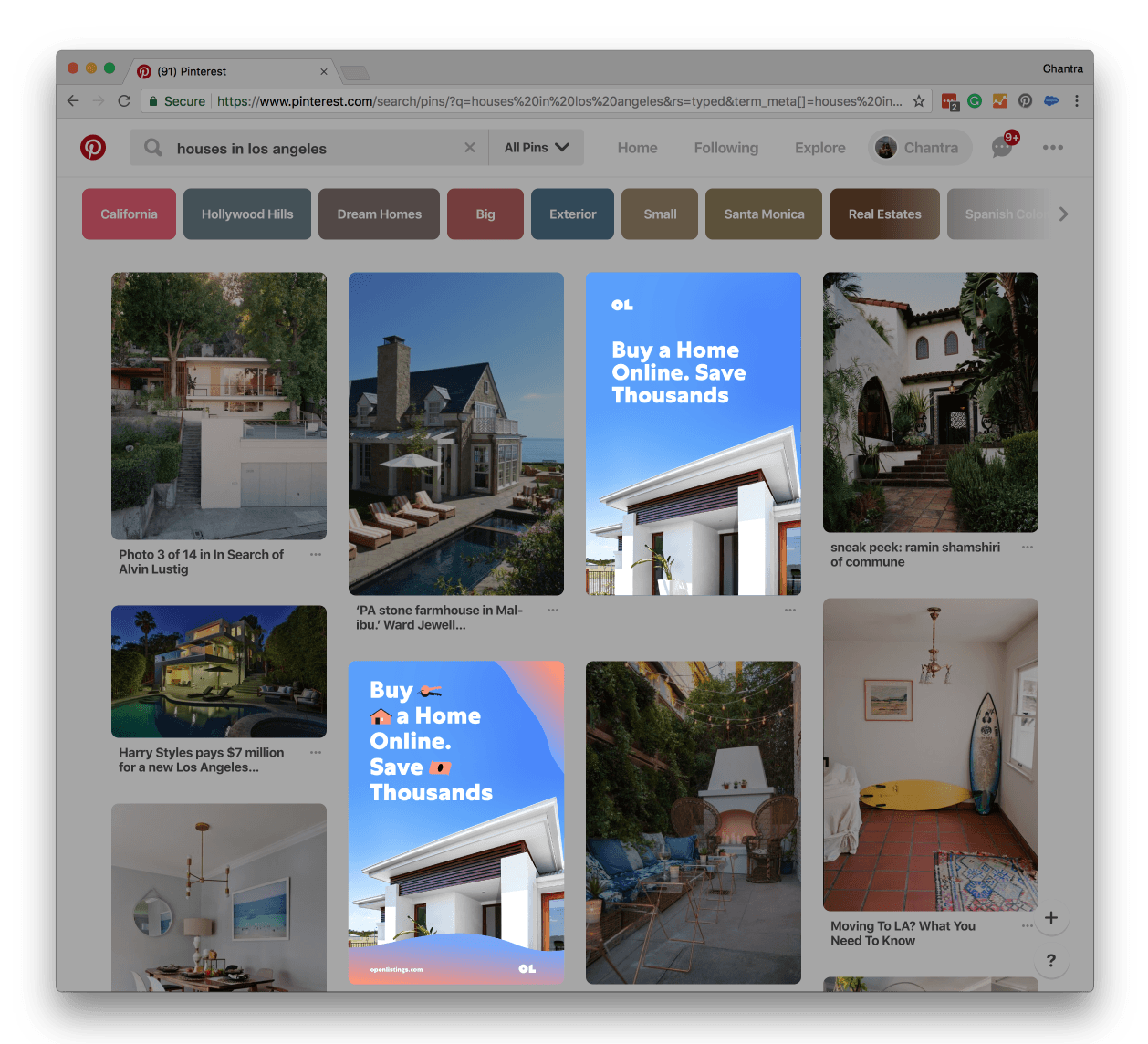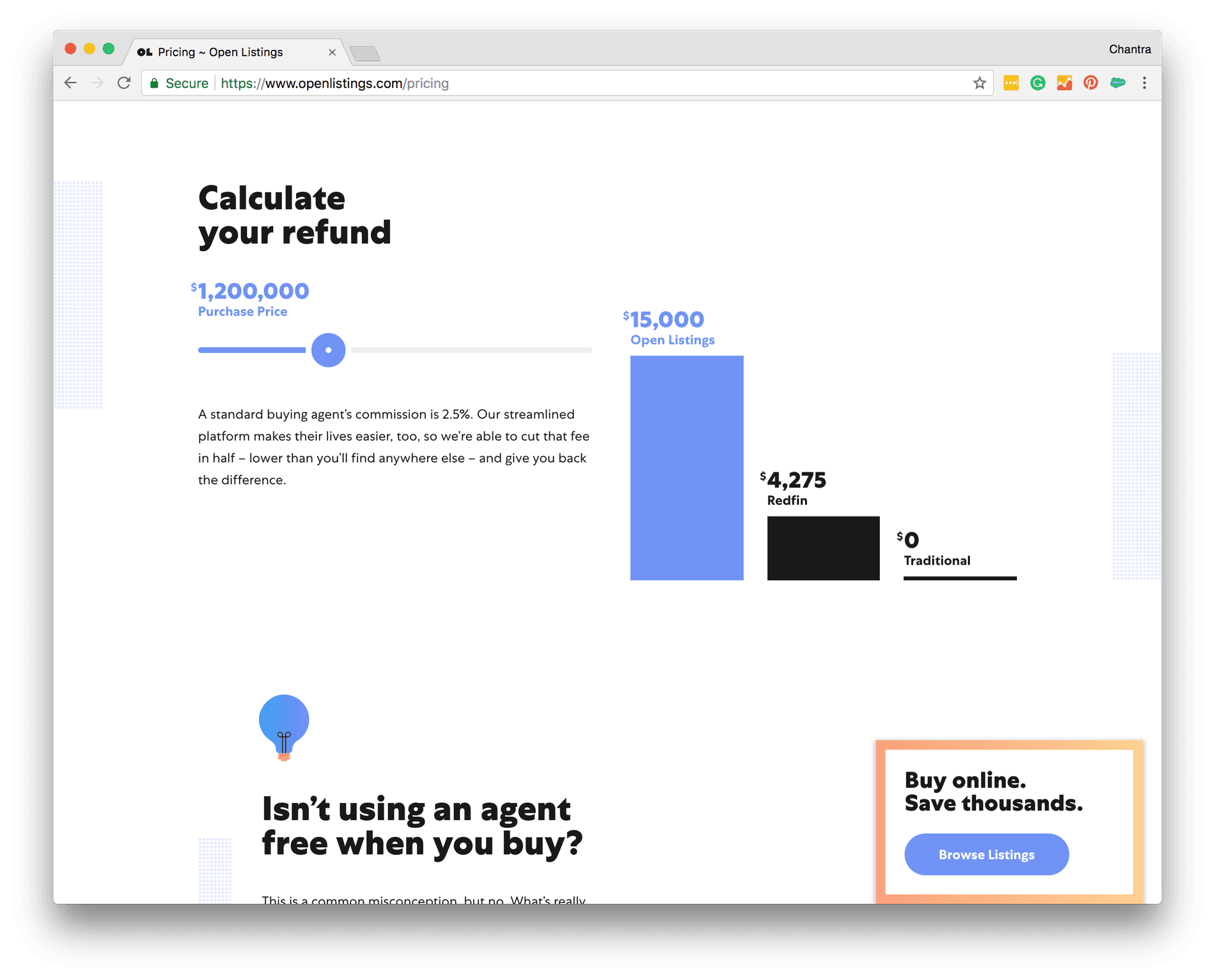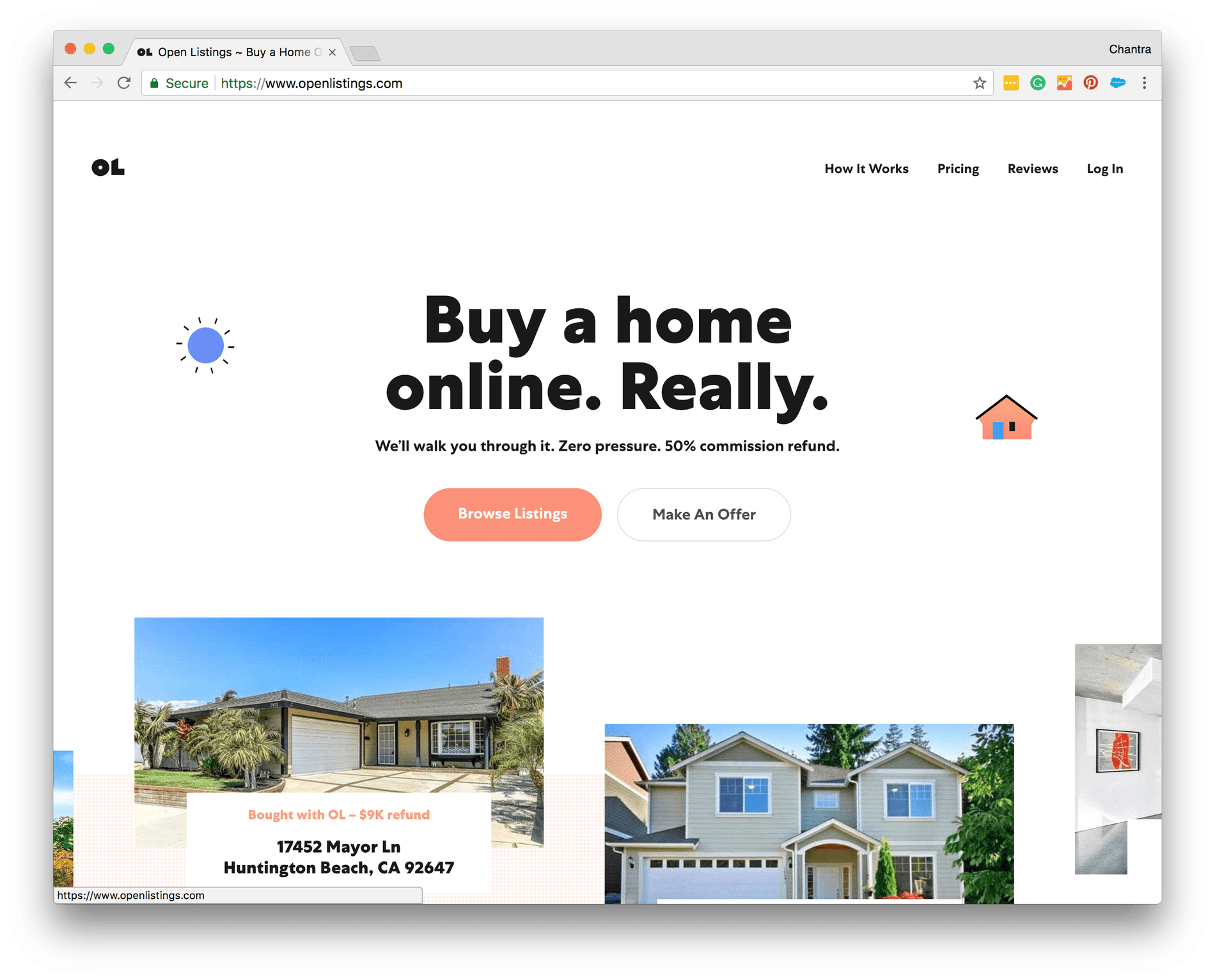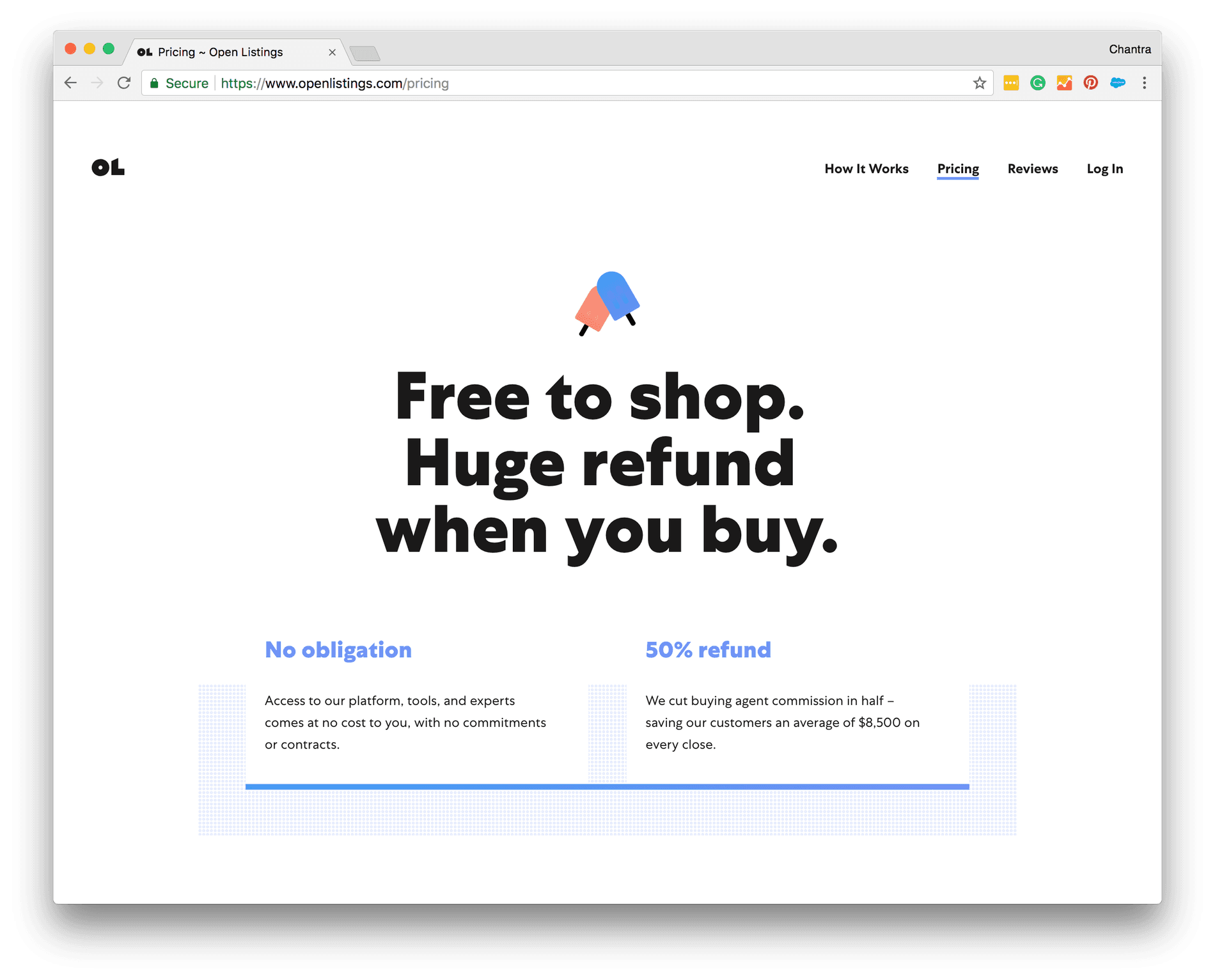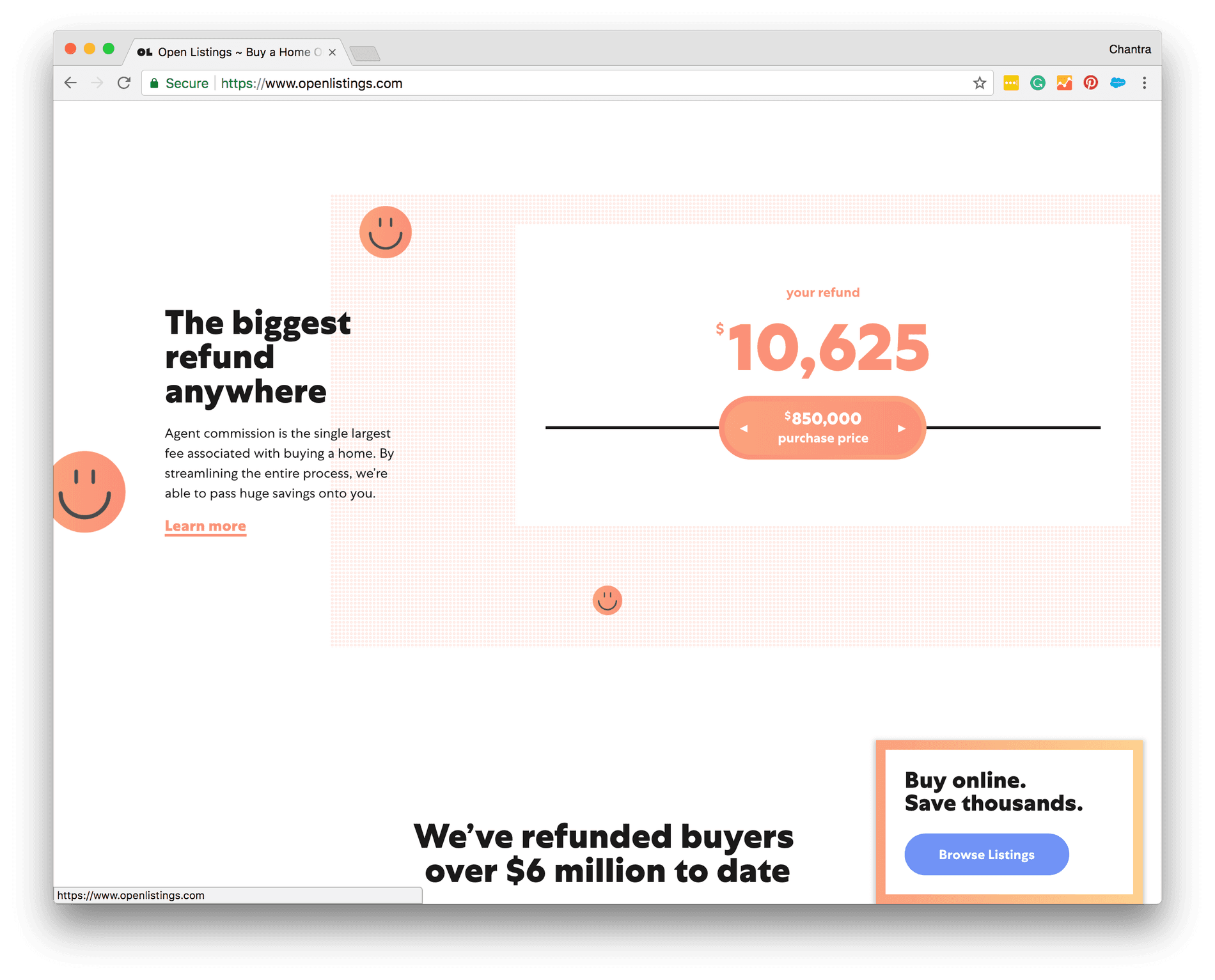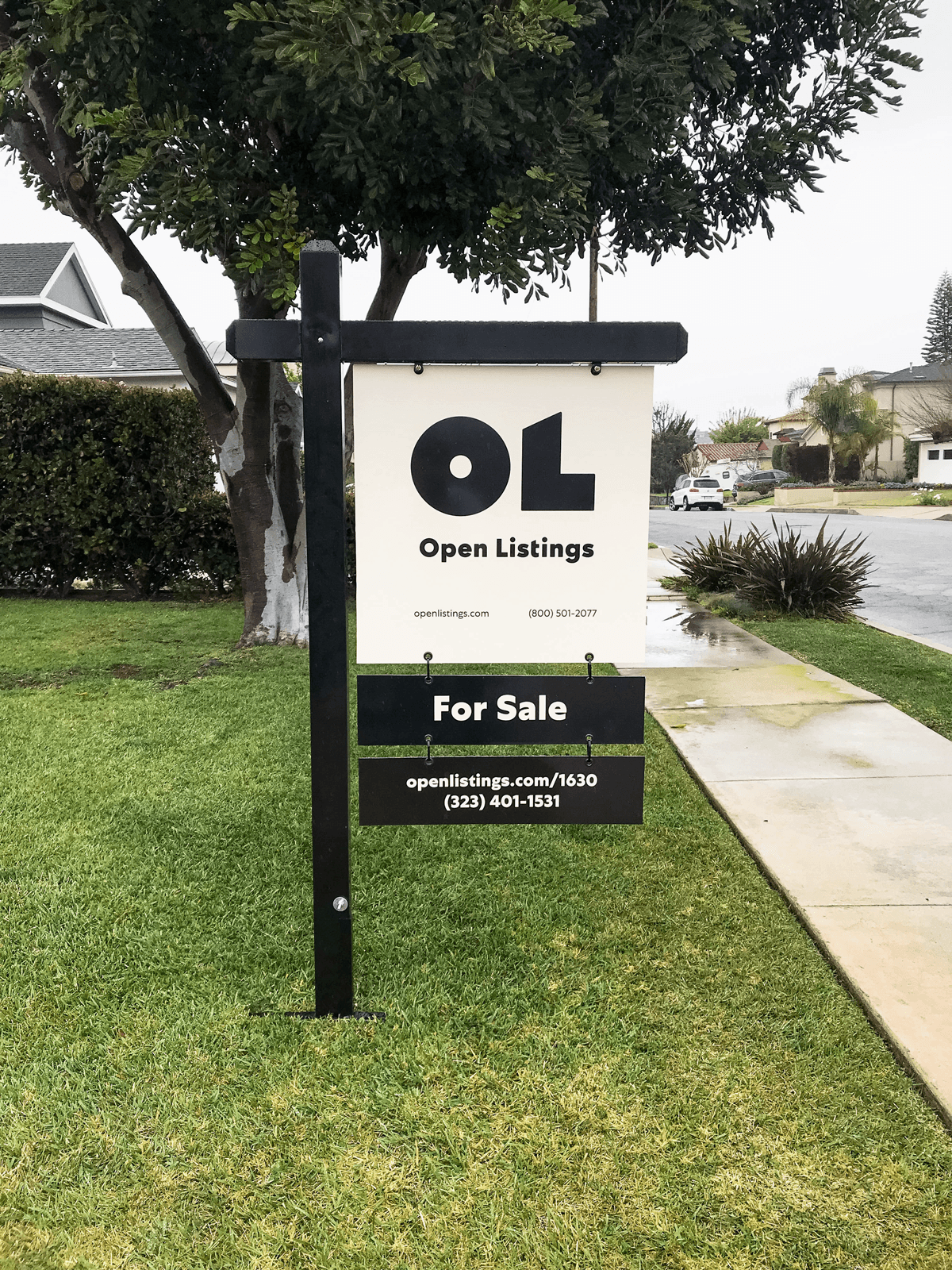
Open Listings is an online real estate brokerage allowing buyers to search, make appointments, and bid for housing on their computers, disrupting the real estate industry as we know it. We first learned about the startup last year in the summer of 2017 after co-founder Peter Sugihara reached out to use Centra No.1. Our good friend and talented designer Justin Sloane designed the branding for the company, whose clean, simple, and sophisticated layout is a perfect backdrop for a humanist sans serif like Centra No.1.
Typeface: Centra No.1
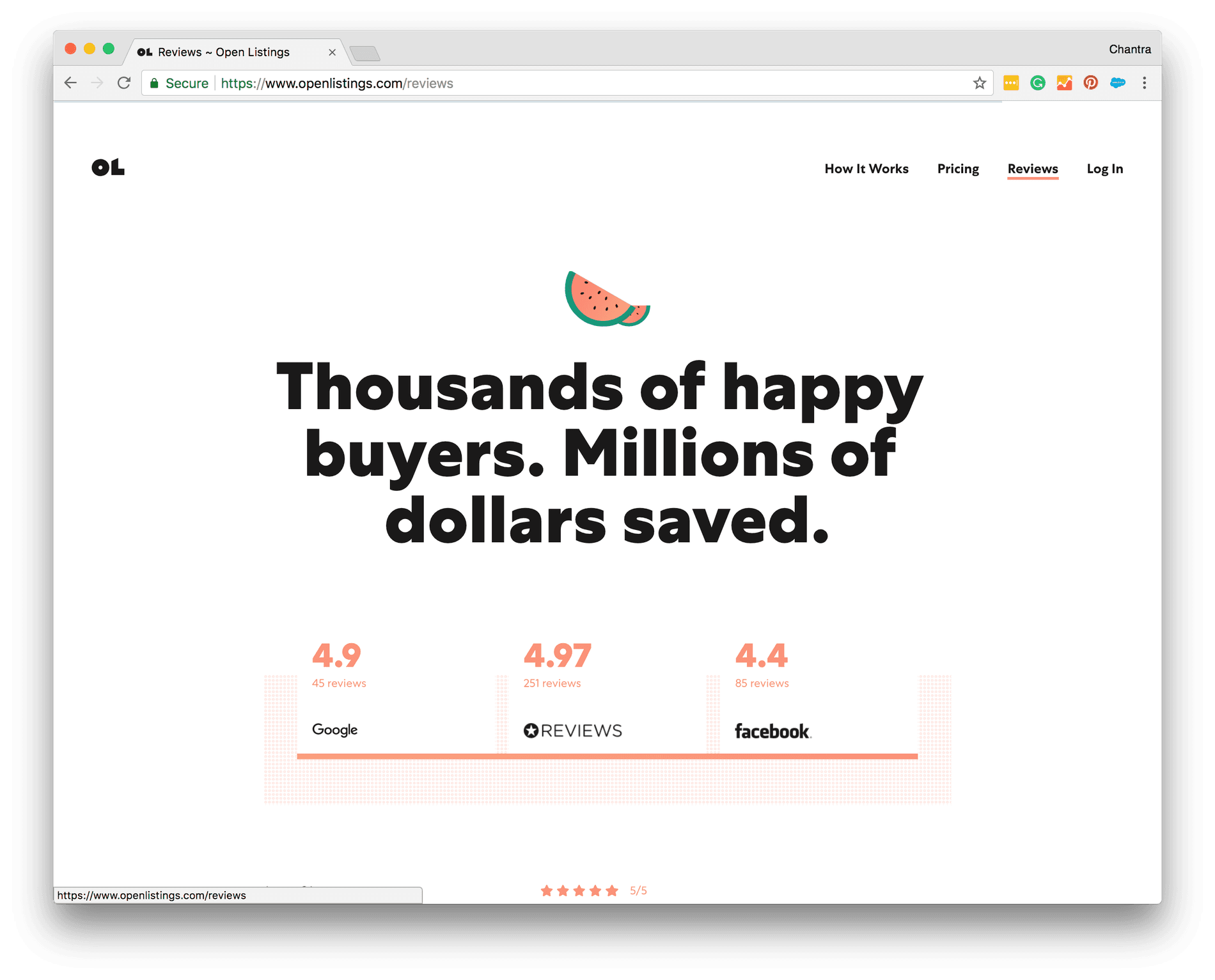
According to Monica Kogler, Open Listing's design director, as they reimagined their visual identity, their brand purpose was defined around enabling the next generation to become homeowners. This meant building a brand and experience that brought the process of buying a home into the 21st century, making it simple, affordable and approachable like Amazon or Airbnb. On the one hand, it was important to them to embody that "feel-good" sensation of being at home – comfort, ease, warmth, approachability, stability. On the other, they wanted to embody the cool, savvy friend that you go to for advice on big decisions; to inject some soul, progressiveness, intelligence, even eccentricity into their brand system to balance rather than obscure the gravity of buying a home.
The team at Open Listings felt like Centra No. 1 uniquely represented all of their needs. Originally, they used Avenir, which was affable but felt too ubiquitous and generic. When considering moving to Brown, it felt friendly but too young and unbranded. They tested TT Norms, with proportions that felt too classic and neutral and too at odds with their futuristic ambitions. Alternatively, Centra No. 1 represented to Open Listings the flexibility, personality, and freshness that they were looking for. The vertical sheers and triangle in the lowercase “t” are distinct but friendly characteristics that largely informed their final selection of the "OL" logomark. Buying a home is inherently information-dense, so Centra No.1 gave them the opportunity to make the text engaging, and also allowed them to be more playful with scale, particularly with the heavier weights.